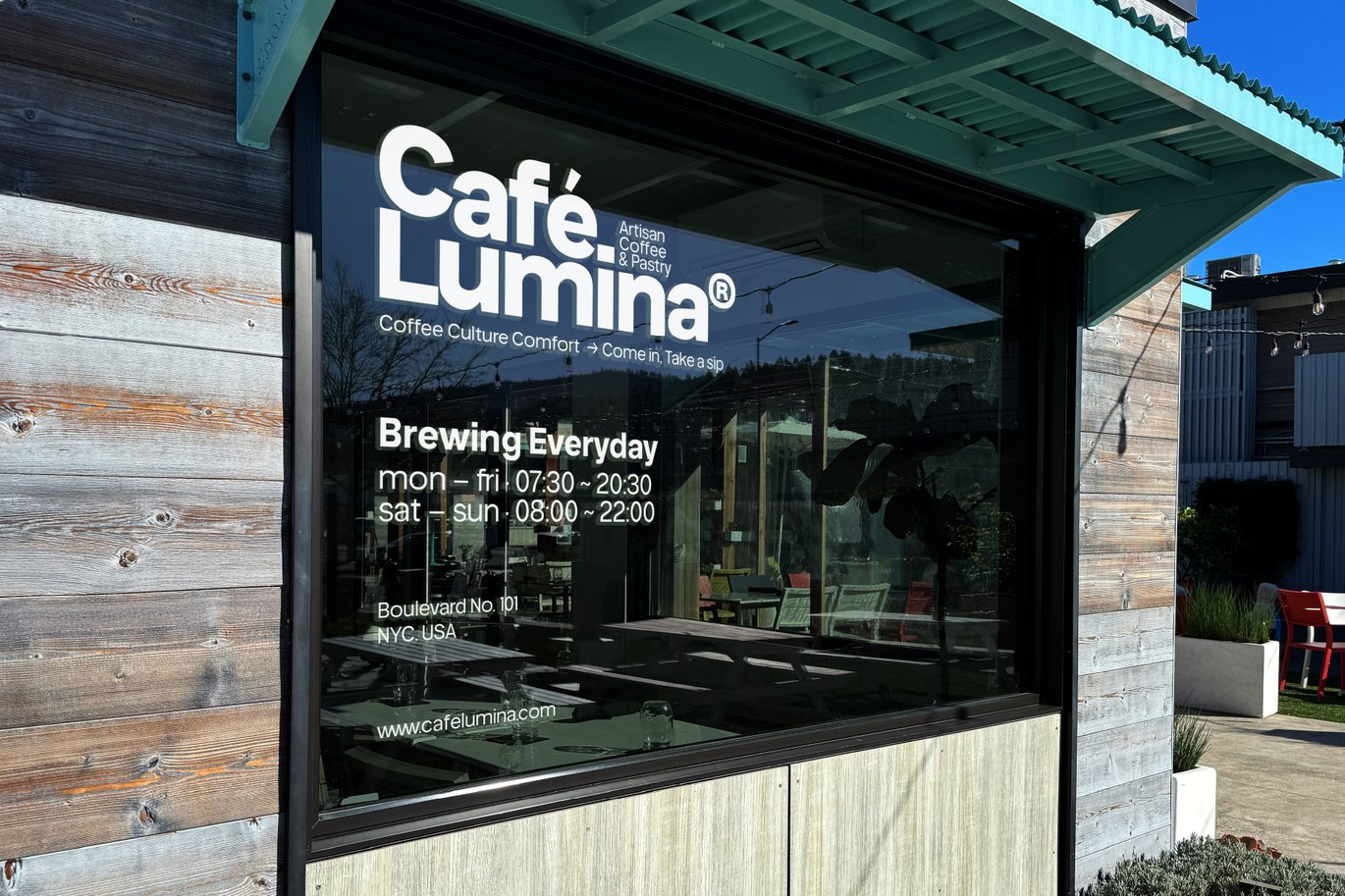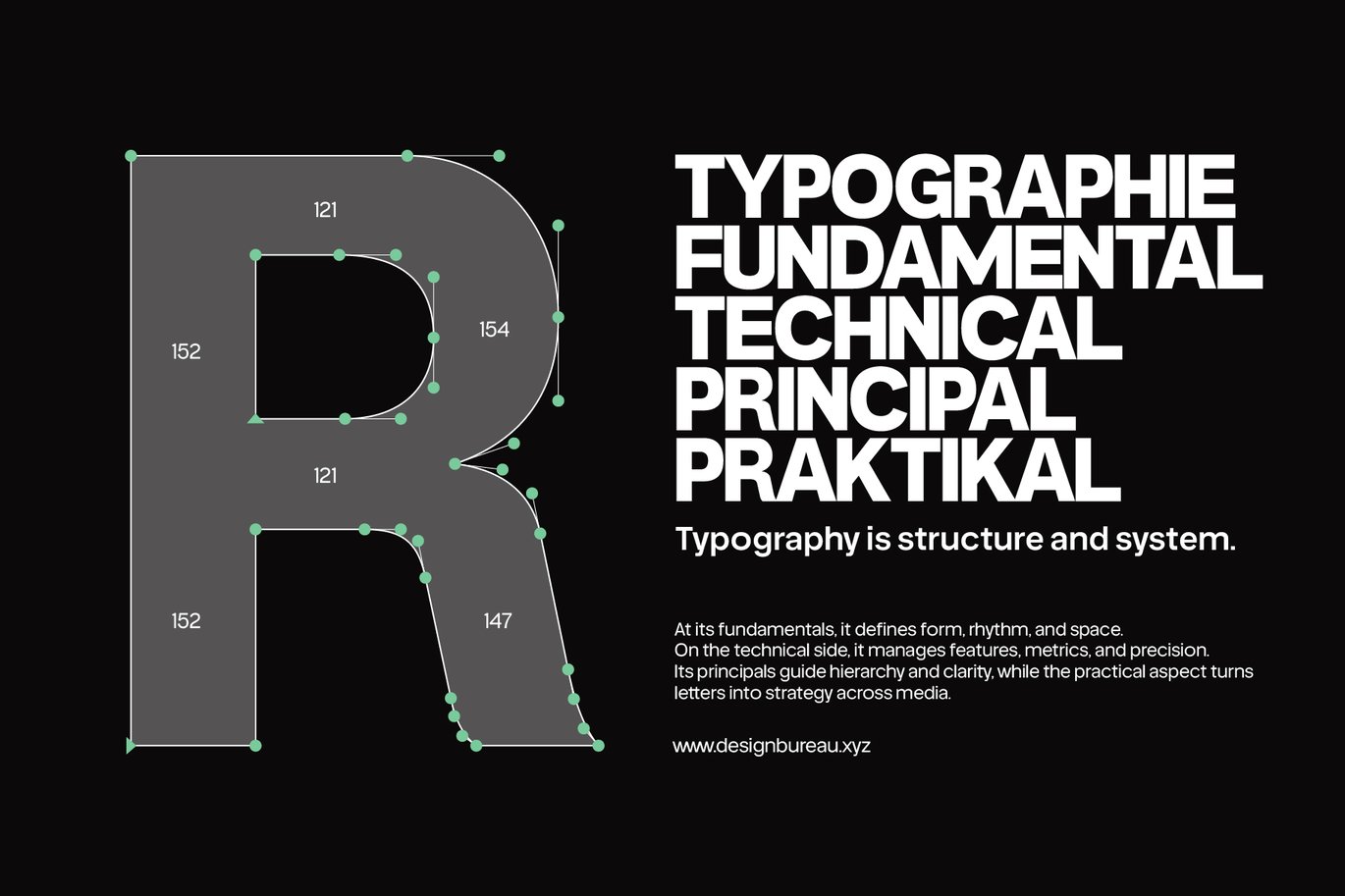
Helvena Grotesk – Modern Bold Brand Identity Font
Helvena Grotesk – Modern Bold Brand Identity Font is a versatile typeface ideal for various projects, including Sans-Serif, logos, branding, posters, blog headers, advertisements. The free version includes a full set of uppercase and lowercase letters, available in OTF, TTF, WOFF, WOFF2 format.